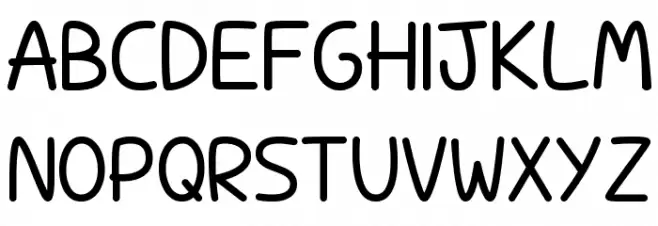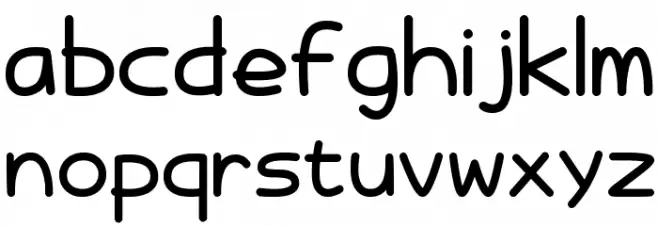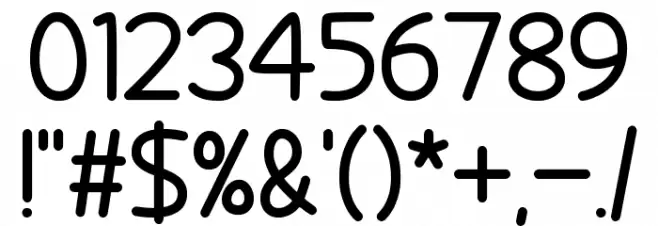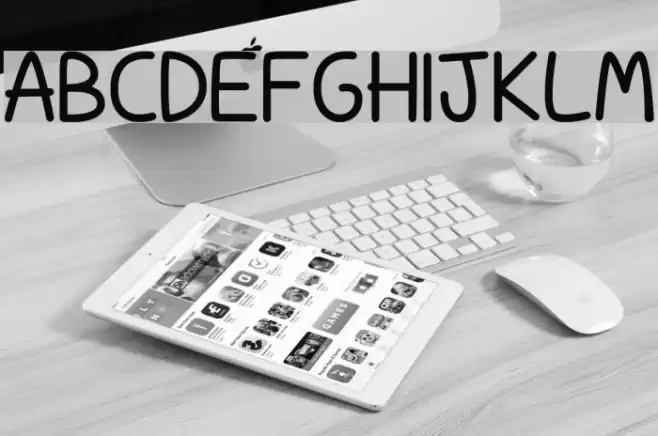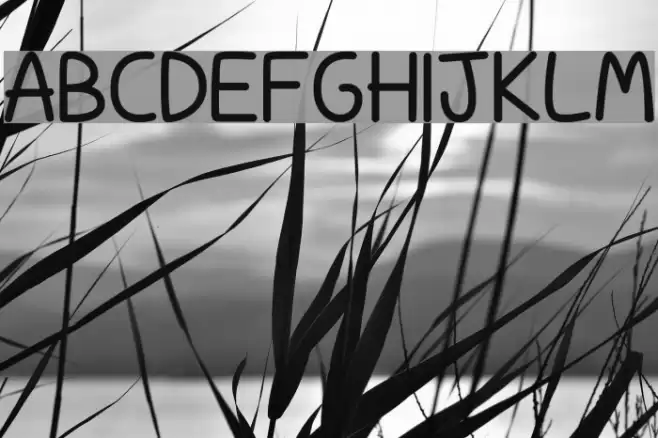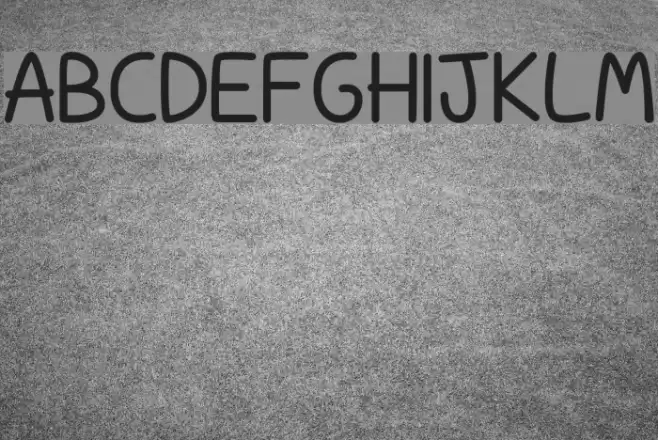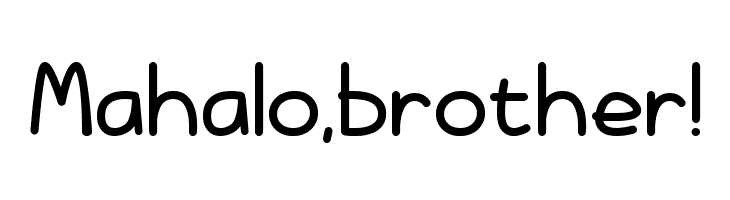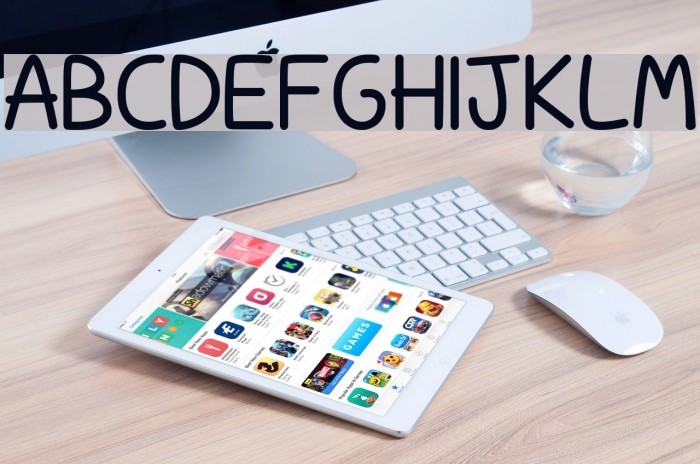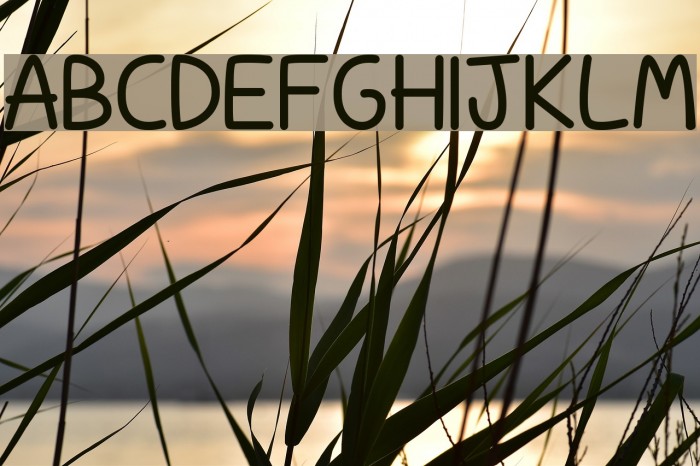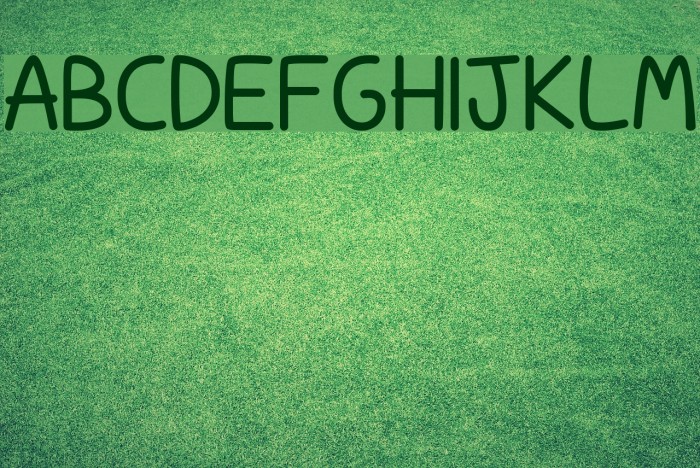
Mahalo, brother!
This font features a playful and casual handwritten style, characterized by rounded edges and a consistent stroke width. The letters are slightly irregular, giving it a friendly and approachable appearance. The uppercase and lowercase letters maintain a uniform height, contributing to its readability. Numbers and special characters are designed to match the overall style, ensuring cohesion across different text elements. The font's informal nature makes it suitable for projects that aim to convey warmth and personality.
A playful, casual handwritten font with rounded edges and consistent stroke width.
- Proposed Projects: Ideal for greeting cards, children's books, casual branding, and social media graphics.
- Overall Style: Casual
- Use Case: Logos, Headlines, Informal Text